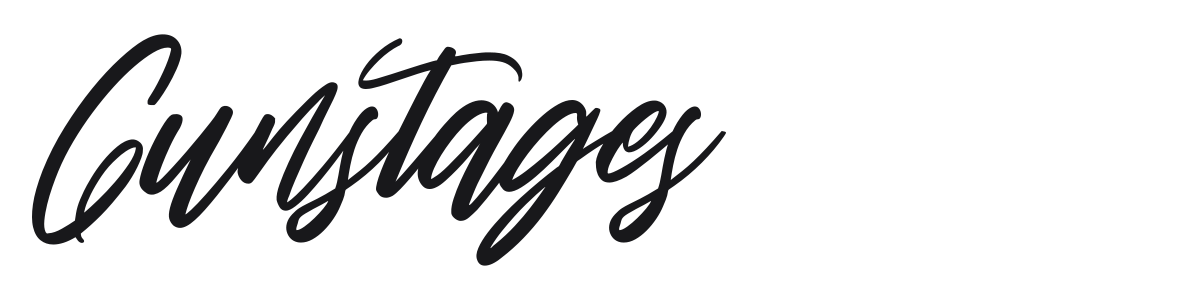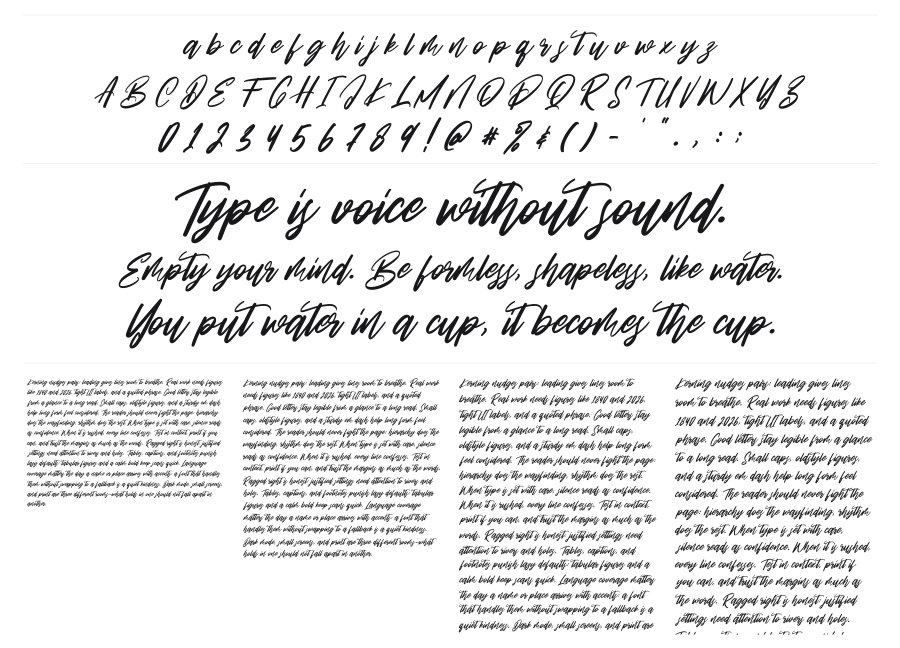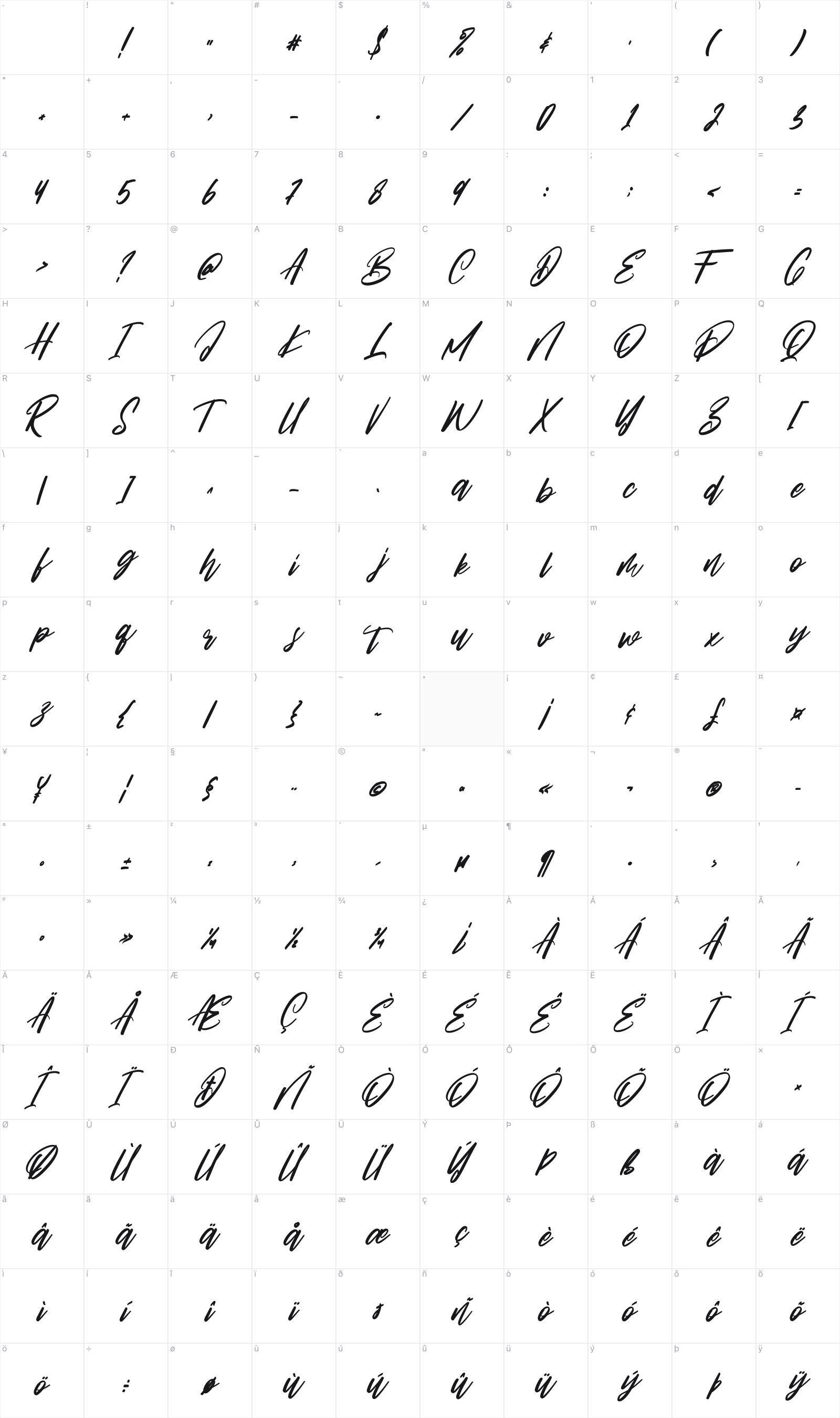
Gunstages
Gunstages is a bold, slanted brush script with the loose energy of hand-lettered ink work. Thick downstrokes contrast sharply against thin hairline connectors, giving each word a natural sense of speed and flow. The fluid connections and sweeping terminals make it a strong choice for logos, packaging, and anywhere a handcrafted personality is needed.